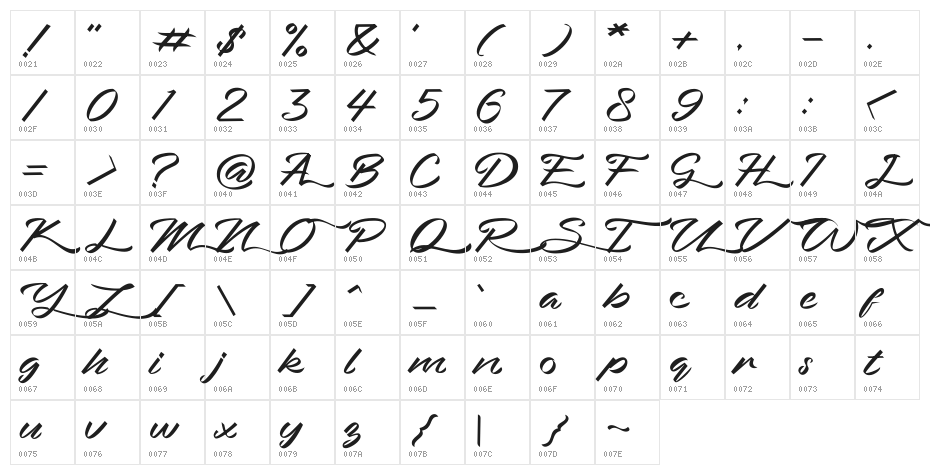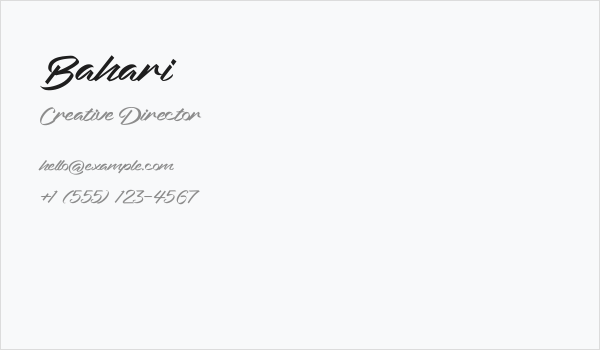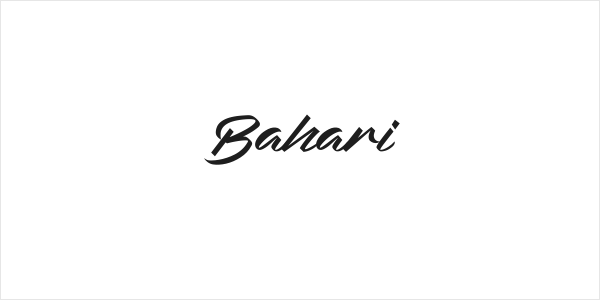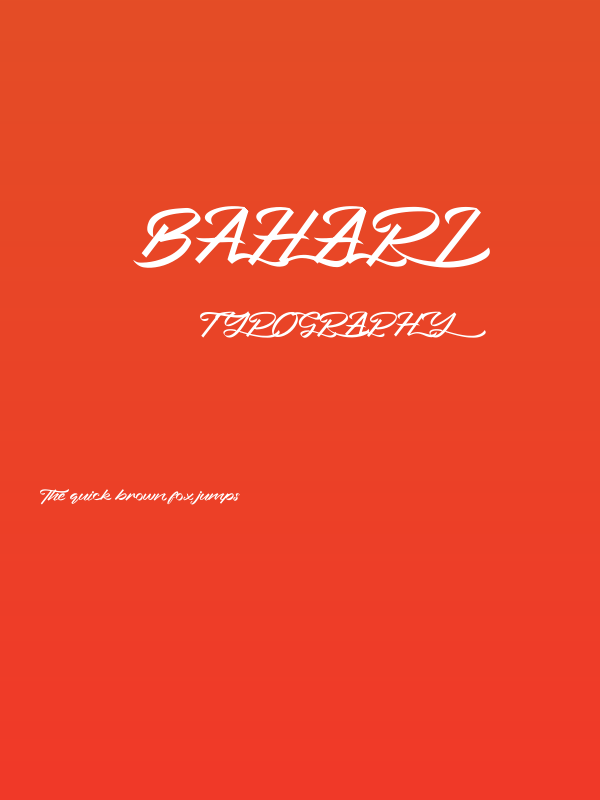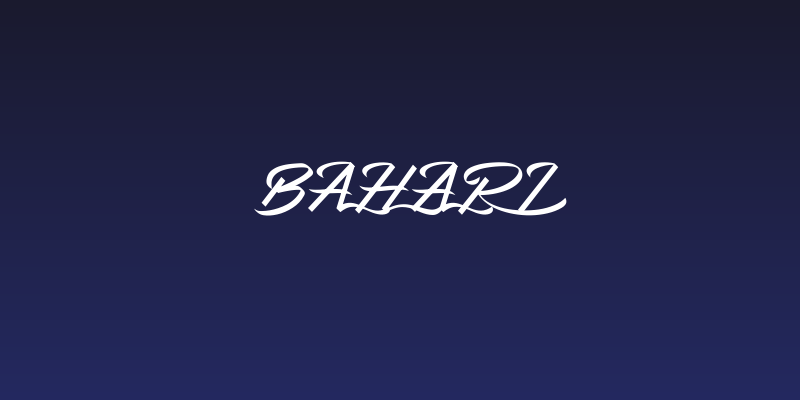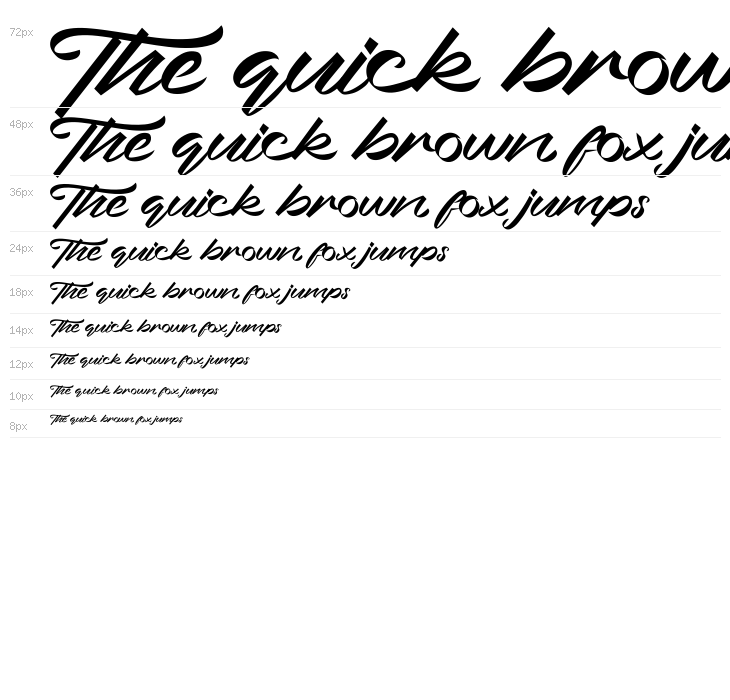
Bahari Font
Bahari Description
This font exudes a dynamic and flowing script style, characterized by its elegant and cursive letterforms. The uppercase letters are bold and sweeping, with a sense of movement that suggests a handwritten quality. The lowercase letters maintain a consistent slant, enhancing the fluidity and grace of the overall appearance. Numbers and special characters are designed with the same attention to detail, ensuring a cohesive look across all elements. The strokes are smooth and connected, giving the font a harmonious and sophisticated feel. This script style is perfect for projects that require a personal touch or a sense of elegance.
BAHARI UPPERCASE
BAHARI LOWERCASE
BAHARI OTHER CHARS